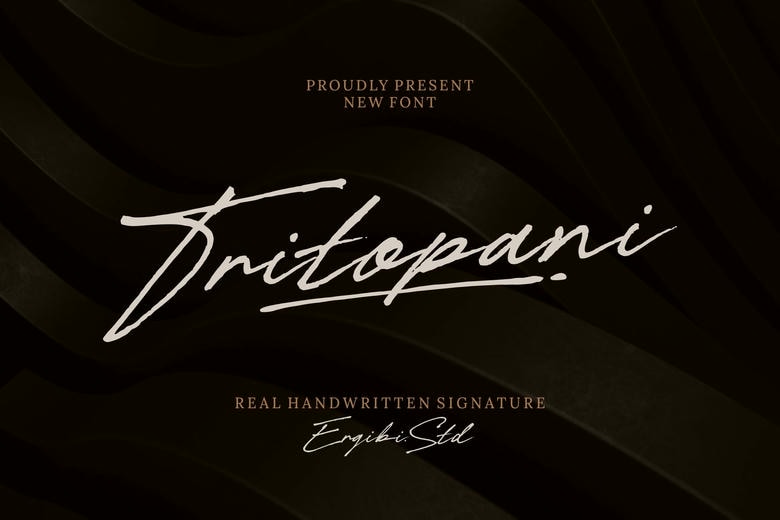
Tritopani is a true handwitten signature font created out of the simple pleasure of putting pen to paper. It conveys the natural rhythm, subtle imperfections, and easy flow of genuine signature – unplanned, relaxed and full of character.
Every letter is personal as though it is written in one breath. It’s a great choice for personal branding, signature-style logos, photography watermarks, wedding stationery, quotes, and designs and social media that require a truly human touch.
Tritopani Handwritten Script Font